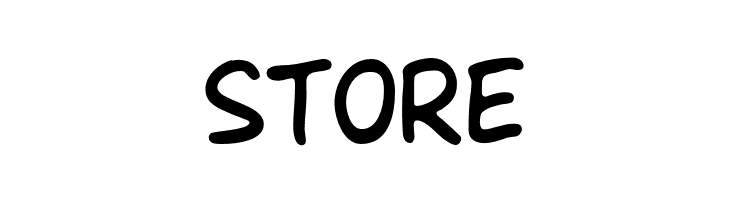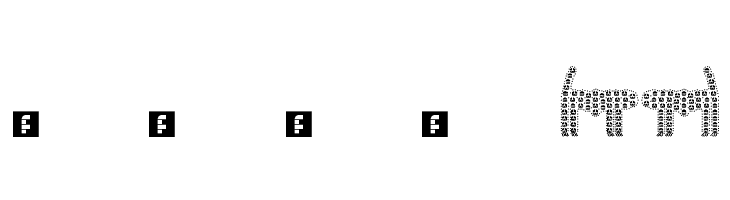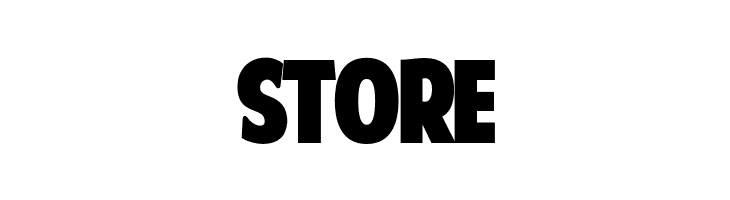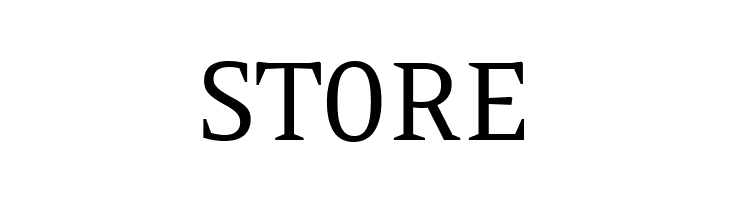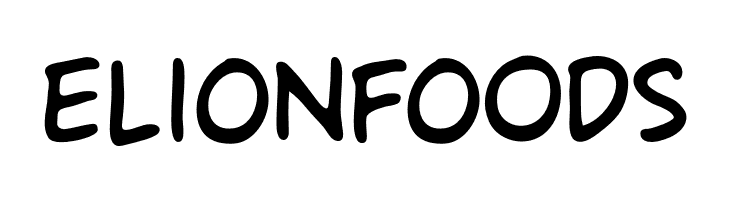
• Caudex Bold
A bold, classic serif font with strong strokes and traditional serifs.
• Caudex Bold Italic
A bold, italic serif font with a classic and elegant style.
• Caudex Italic
Elegant serif font with a classic italic style and moderate contrast.
• Cee's Hand
• Cee's Hand Bold
• Cee's Hand Bold Italic
• Cee's Hand Italic
• Celestial
A futuristic, geometric font with a circuit-like design using dots and lines.
• Celestial
• Celestial Bold
• Celestial Bold Italic
• Celestial Italic
• Celines Hand
• Celle Regular
• Cerbetica
A modern, clean sans-serif font with uniform strokes and a slightly condensed width.
• Cerbetica Bold
A bold, clean sans-serif font with geometric shapes and uniform strokes.
• Cerco DEMO
A modern, clean sans-serif font with consistent stroke width and excellent readability.
• Cerco DEMO Black
A bold, rounded font with a modern and clean style.
• Cerco DEMO Black Italic
• Cerco DEMO Bold
A bold, modern sans-serif font with clean, geometric lines.
• Cerco DEMO Bold Italic
A bold and italic font with a modern, dynamic style.
• Cerco DEMO Italic
A sleek, modern italic font with clean lines and consistent stroke width.
• Cerco DEMO Light
A clean, modern sans-serif font with geometric shapes and uniform strokes.
• Cerco DEMO Light Italic
A sleek, modern, light italic sans-serif font with elegant slant and low contrast.
• Cerco DEMO Medium
A modern, clean sans-serif font with uniform strokes and excellent readability.
• Cerco DEMO Medium Italic